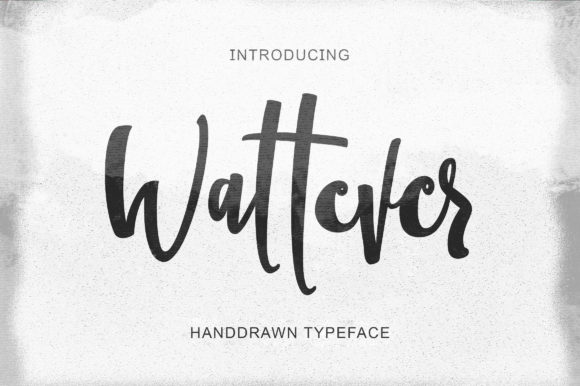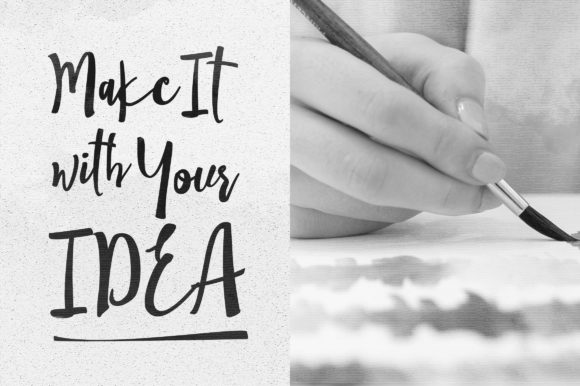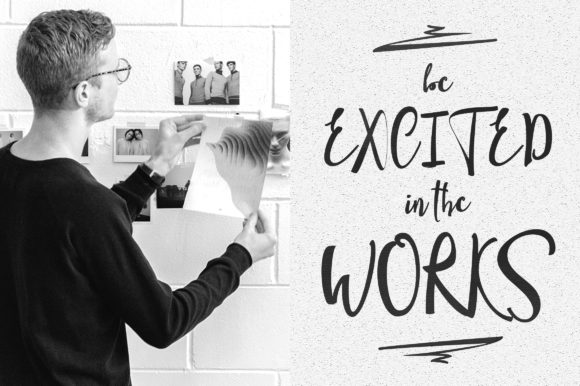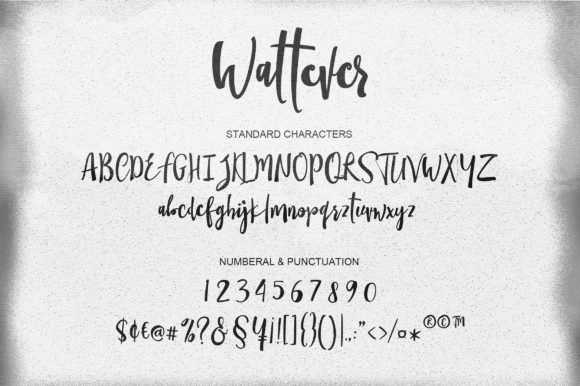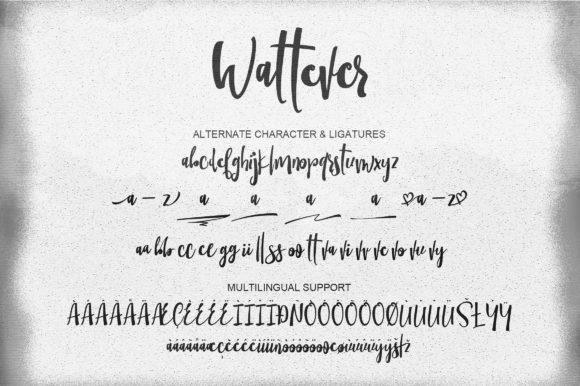
HomeScript FontsWattever Font Script Fonts Wattever Font FacebookXPinterestWhatsApp Wattever Font Poster 2 Wattever Font Poster 3 Wattever Font Poster 4 Wattever Font Poster 5 About Wattever Font Wattever is a bold and unique handwritten script that will inspire design projects with its unique and fresh feel. DOWNLOAD NOW People also explored Summer Shell Font Bronks Script Font Cottsmic Font Garland Font Short Note Font The Amazing You Font Anggeliana Font Success Font Rolever Font 334 0 TagsWattever Font Previous articleRinjani FontNext articlePanterick Font LEAVE A REPLY Cancel reply Comment: Please enter your comment! Name:* Please enter your name here Email:* You have entered an incorrect email address! Please enter your email address here Website: Save my name, email, and website in this browser for the next time I comment. Personal Use Free Party Pooper Personal Use Free Read more about this font Rogueland Personal Use Free Read more about this font Wadjet Personal Use Free Read more about this font Rasiday Personal Use Free Read more about this font BLOG Modern Sans-Serif Fonts That Brands Love in 2025 In 2025, modern sans-serif fonts remain a top choice for brands looking to project clarity, professionalism, and... Best Fonts for T-Shirt Design – Top 2025 Picks Transform Your Website: Elevate Your Typography with 7 Best Web Font Generators Elegant Wedding Invitation Fonts – Handwritten & Script Fonts